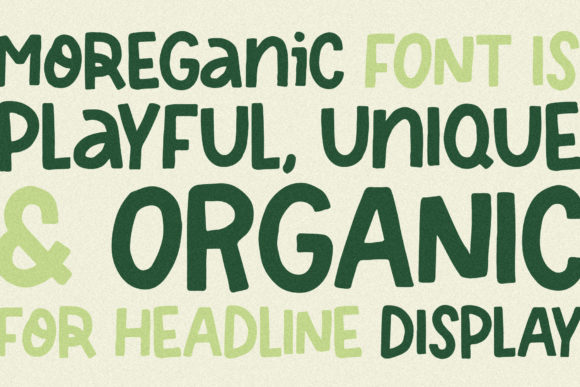
Introducing Moreganic Font: The Perfect Blend of Hand-Drawn and Modern Style
In the world of typography, fonts play a crucial role in conveying the tone and personality of a brand. With the rise of organic and healthy lifestyle trends, designers are constantly on the lookout for fonts that can capture the essence of these themes. This is where Moreganic Font comes in – a beautiful display font that combines the charm of hand-drawn typography with a modern twist.
What is Moreganic Font?
Moreganic Font is a lovely display font inspired by plants and healthy lifestyles. Its unique blend of hand-drawn and modern elements makes it an ideal choice for designers looking to add an organic and playful touch to their projects. The font comes with alternates that provide more options for customization, allowing designers to experiment with different styles and moods.
Key Features of Moreganic Font
- Hand-drawn style: Moreganic Font boasts a charming hand-drawn style that gives it a personal and approachable feel.
- Modern touch: The font’s modern elements ensure that it remains clean and legible, making it perfect for display purposes.
- Alternates: Moreganic Font comes with alternates that provide designers with more options for customization, allowing them to experiment with different styles and moods.
- Organic and playful feel: The font’s unique blend of hand-drawn and modern elements gives it an organic and playful feel that’s perfect for branding projects or packaging.
Uses of Moreganic Font
Moreganic Font is ideal for a variety of design projects, including:
- Branding projects: The font’s unique blend of hand-drawn and modern elements makes it perfect for branding projects that require an organic and playful feel.
- Packaging design: Moreganic Font is well-suited for packaging design, particularly for products that promote healthy lifestyles and organic living.
- Display purposes: The font’s clean and legible design makes it perfect for display purposes, such as headlines, titles, and captions.
Benefits of Using Moreganic Font
Using Moreganic Font in your design projects offers several benefits, including:
- Unique and distinctive look: The font’s hand-drawn style and modern elements give it a unique and distinctive look that sets it apart from other fonts.
- Flexibility: Moreganic Font comes with alternates that provide designers with more options for customization, allowing them to experiment with different styles and moods.
- Improved brand identity: The font’s organic and playful feel makes it perfect for branding projects that require a unique and memorable identity.
Tips for Using Moreganic Font
Here are some tips for using Moreganic Font in your design projects:
- Pair it with neutral colors: Moreganic Font looks great when paired with neutral colors such as white, black, and gray.
- Experiment with alternates: The font’s alternates provide designers with more options for customization, so don’t be afraid to experiment with different styles and moods.
- Use it for display purposes: Moreganic Font is perfect for display purposes, such as headlines, titles, and captions.
In conclusion, Moreganic Font is a beautiful display font that combines the charm of hand-drawn typography with a modern twist. Its unique blend of organic and playful elements makes it perfect for branding projects or packaging that require a unique and memorable identity. With its alternates and flexibility, Moreganic Font is a great choice for designers looking to add a touch of personality to their projects.
- What is Moreganic Font?: Moreganic Font is a lovely display font inspired by plants and healthy lifestyles.
- What are the key features of Moreganic Font?: The font’s key features include a hand-drawn style, modern touch, alternates, and an organic and playful feel.
- What are the uses of Moreganic Font?: Moreganic Font is ideal for branding projects, packaging design, and display purposes.